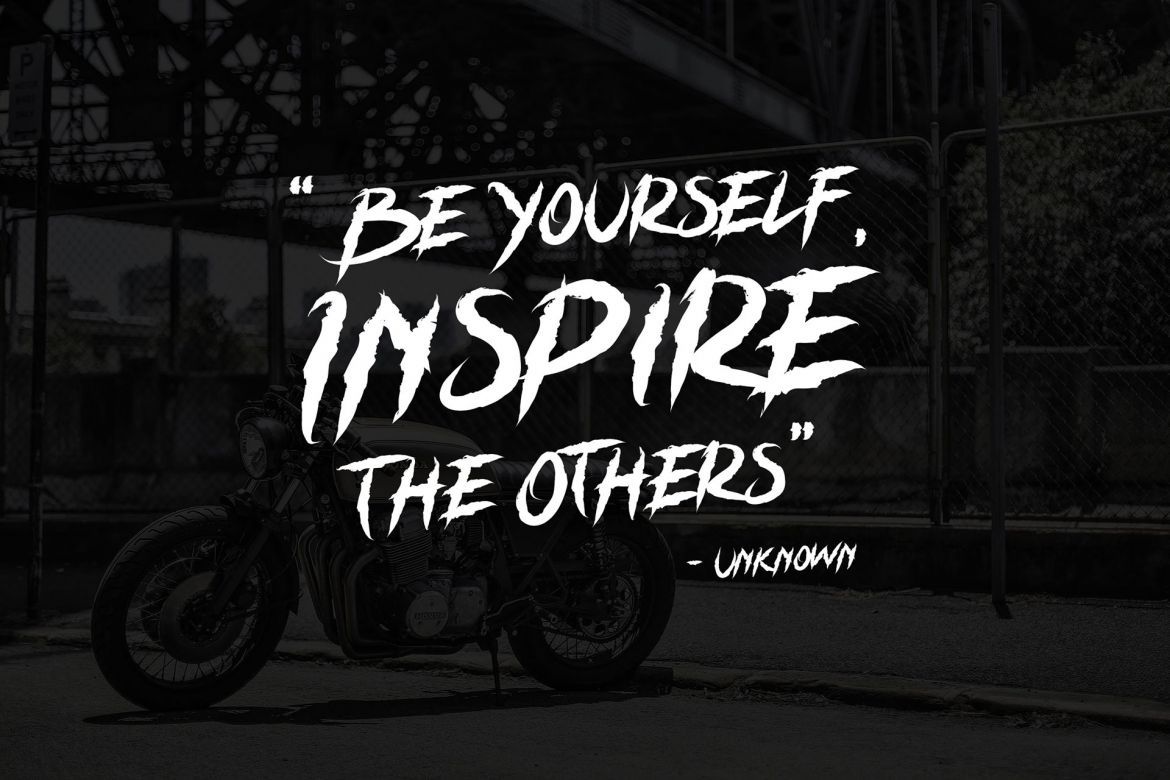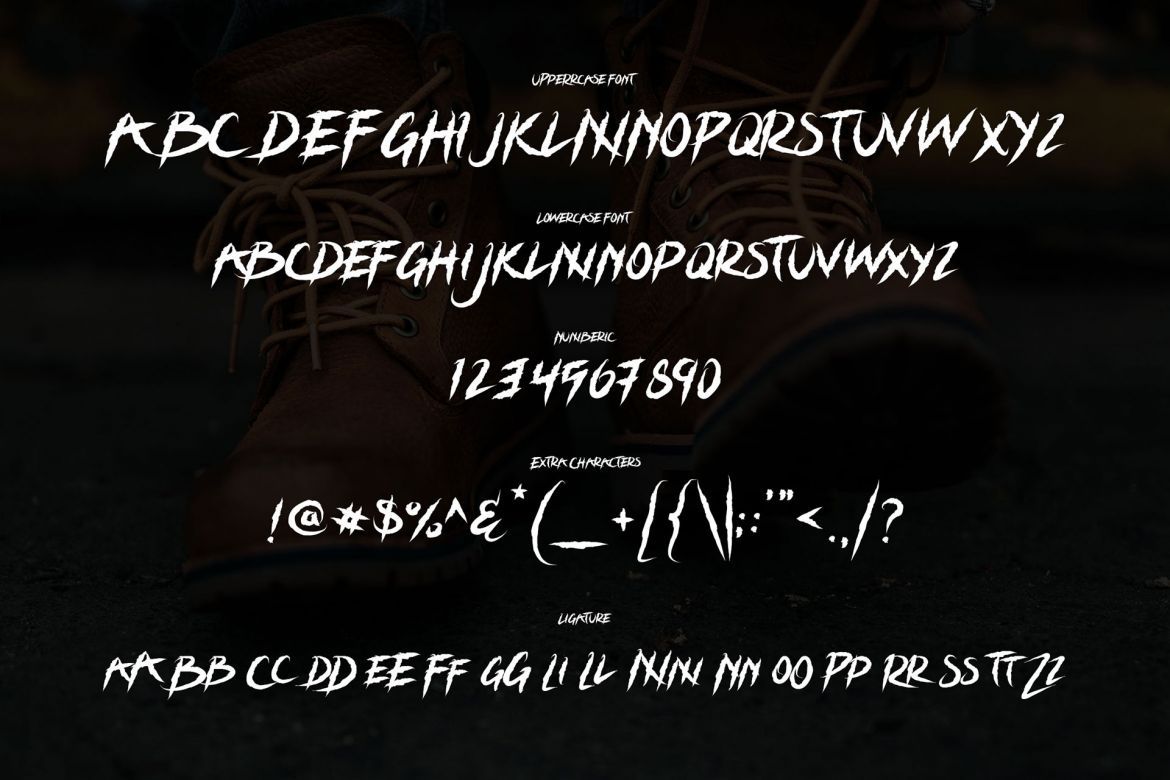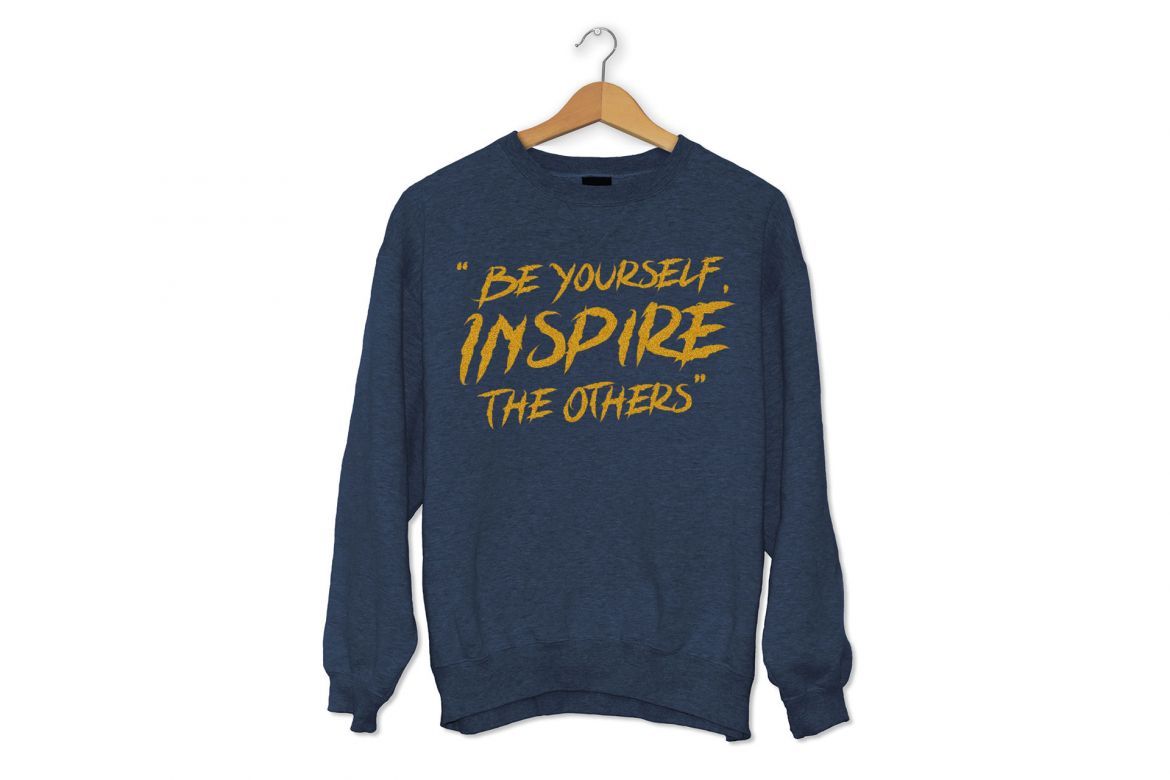
Grizzly Attack – Brush Font
Introducing – Grizzly Attack is a brush and hand-drawn font, this font looks urban, cool, readable, stylish, and versatile so you can use in a plethora of designs in both digital and print applications.
Grizzly Attack is a brush and hand-drawn font, this font looks urban, cool, readable, stylish, catchy and easy to use.
Grizzly Attack is the best choice for your professional design projects, including signature, watermark on photography, quotes, wedding, fashion, letter, invitation, business card, logo, branding, magazines, social media, advertisements, product designs, and much other design projects.
• the perfect font choice for powerful projects – watermarks, signatures, photography, logos, business cards, quotes, album covers.